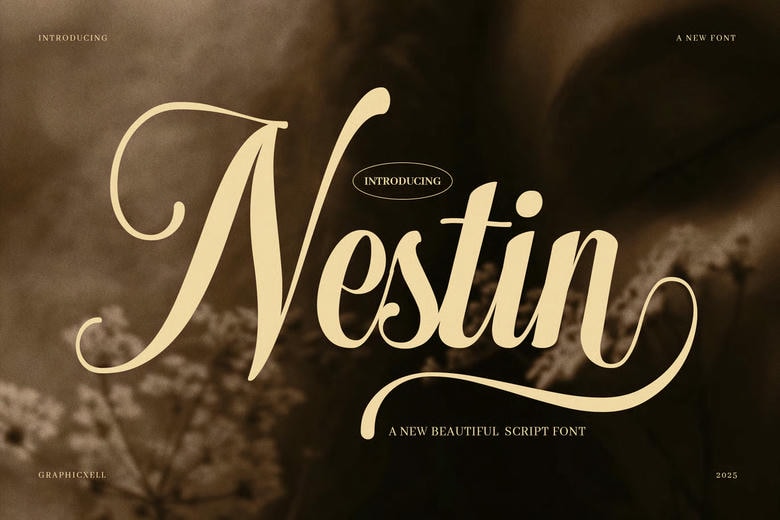
Nestin Font
Nestin is an elegant script font that is designed to convey beauty, warmth, and civilized feeling. It has smooth lines, elegant lines, and soft letterforms that are natural and expressive. Due to its low rhythm, Nestin is a personal and luxurious accompaniment to each design.
Being a combination of modernity and traditional calligraphy, this script font is elegant and stylish. Consequently, it is effective in branding fashion brands, lifestyle images and quotations. In addition, the letters interrelate easily and words become alive and flowing. The light contrast and the fancy swashes are stylish and do not clog the message.
Nestin suits well designers who desire elegance, but in a clear way. Thus, it fits perfectly in logos, packaging, social media graphics and web header. It also works well in print projects including wedding invitations, greeting cards, and the top quality product labels.
Nestin Script Font